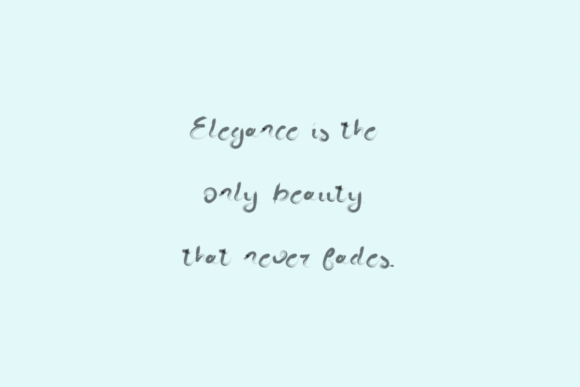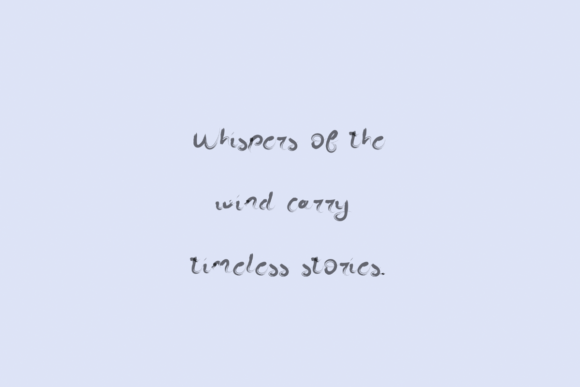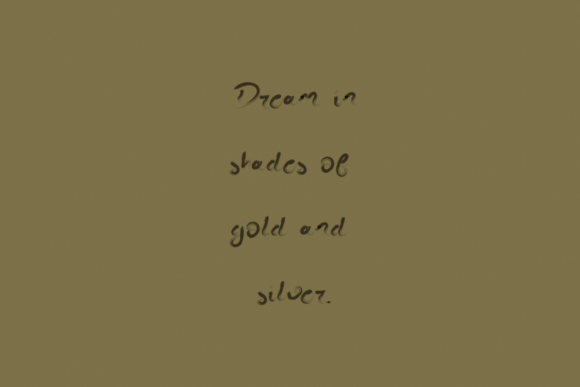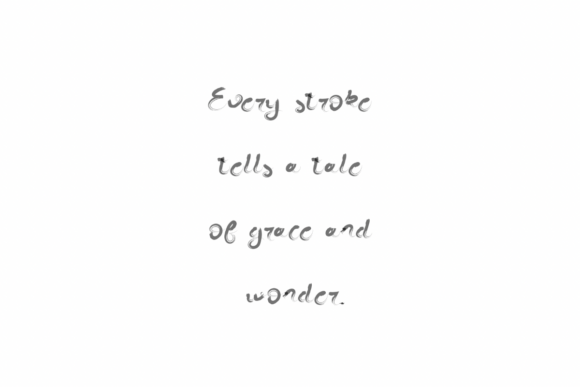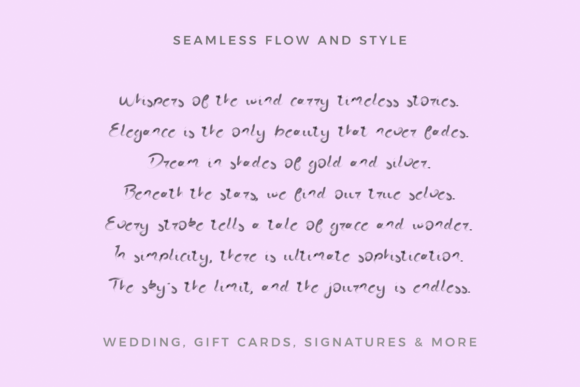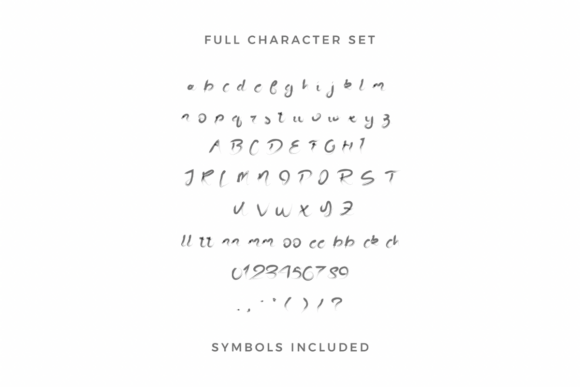
Unleashing Creative Elegance: The Brushstrokes Font
In the realm of typography, few fonts manage to capture the essence of artistic expression and individuality as beautifully as the ‘Brushstrokes’ font. This enchanting, handwritten script font is a masterpiece that brings to the table a unique blend of elegance, warmth, and creativity. Designed to mimic the fluidity and charm of traditional brushstroke calligraphy, ‘Brushstrokes’ stands out as a distinctive typeface that can elevate any design project to new heights of stylistic brilliance.
The Essence of Brushstrokes
At its core, the ‘Brushstrokes’ font is a celebration of the art of handlettering. Each letterform is meticulously crafted to convey a sense of movement and fluidity, reminiscent of the strokes of a brush dancing across paper. This dynamic quality infuses the font with a lively, organic feel that is hard to replicate with more rigid typefaces. Whether you’re working on a branding project, a wedding invitation, or a digital blog post, ‘Brushstrokes’ brings a touch of personal warmth and elegance that can make your work truly stand out.
A Tribute to Traditional Calligraphy
The ‘Brushstrokes’ font pays homage to the timeless appeal of traditional brushstroke calligraphy, a art form that has been cherished for centuries across various cultures. This typeface beautifully captures the essence of calligraphic art, translating the expressive qualities of hand-brushed letters into a digital format. Yet, it does so with a modern twist, incorporating a unique charm that is distinctly its own. This blend of tradition and innovation makes ‘Brushstrokes’ a versatile tool for designers looking to infuse their projects with a sense of heritage and contemporary flair.
Versatility and Stylistic Brilliance
One of the most compelling attributes of the ‘Brushstrokes’ font is its unparalleled versatility. Its endearing allure and stylistic brilliance make it suitable for a multitude of design projects. For crafters and designers, this means that ‘Brushstrokes’ can be the go-to font for a wide range of applications, from elegant stationery and eye-catching posters to engaging blog content and compelling brand identities. The font’s ability to convey warmth, creativity, and sophistication with equal ease makes it an invaluable asset in any designer’s toolkit.
Why Choose Brushstrokes?
So, why should designers and crafters choose ‘Brushstrokes’ over other fonts? The answer lies in its unique combination of elegance, expressiveness, and accessibility. Here are a few reasons why ‘Brushstrokes’ stands out:
- Expressive Elegance: ‘Brushstrokes’ offers a level of expressiveness that is rare in digital typography. Its fluid, handlettered design brings a personal touch to any project.
- Artistic Passion: The font embodies artistic passion and individuality, making it perfect for projects that require a creative edge.
- Warmth and Creativity: It exudes a sense of warmth and creativity, qualities that are essential for engaging and memorable design.
- Versatility: ‘Brushstrokes’ is incredibly versatile, suitable for everything from luxury branding to DIY craft projects.
The ‘Brushstrokes’ font is more than just a typeface; it’s a tool for creative expression. Its distinctive, handwritten script offers a refreshing alternative to more conventional fonts, bringing a sense of elegance, warmth, and artistic passion to any design project. With its roots in traditional brushstroke calligraphy and its eye towards modern design sensibilities, ‘Brushstrokes’ is poised to become a favorite among designers and crafters looking to leave a lasting impression. Whether you’re aiming to create visually stunning materials or simply looking for a font that can add a personal touch to your digital content, ‘Brushstrokes’ is an excellent choice.
Getting Started with Brushstrokes
Embracing the ‘Brushstrokes’ font in your design projects is easier than you think. Here are a few tips to get you started:
- Experiment with Sizes and Colors: Play around with different sizes and color palettes to see how ‘Brushstrokes’ can be adapted to fit your project’s aesthetic.
- Pair it Wisely: Consider pairing ‘Brushstrokes’ with complementary fonts to create visual interest and hierarchy in your designs.
- Emphasize Creativity: Don’t be afraid to experiment and add your own creative twist to projects featuring ‘Brushstrokes’.
By integrating ‘Brushstrokes’ into your design workflow, you’re not just choosing a font; you’re embracing a design philosophy that values creativity, elegance, and individuality. So, why settle for ordinary when you can create something truly extraordinary with ‘Brushstrokes’?